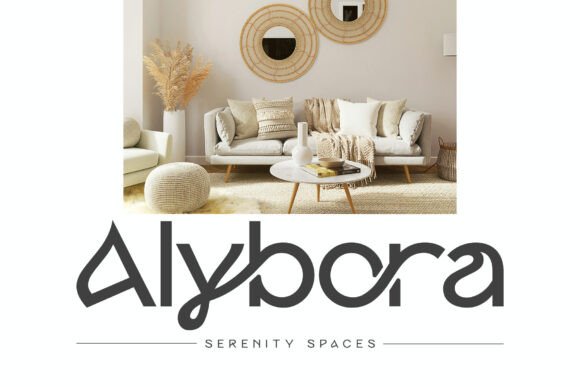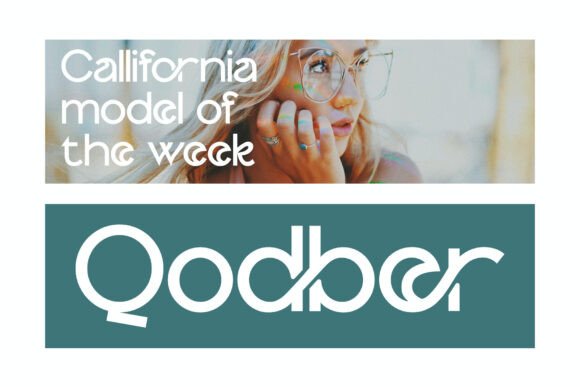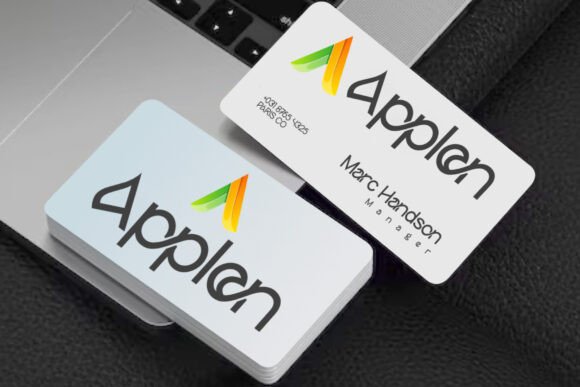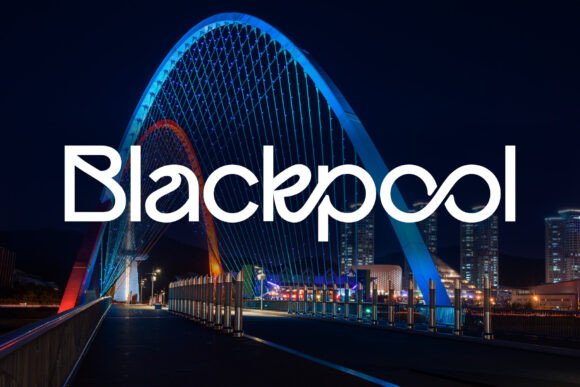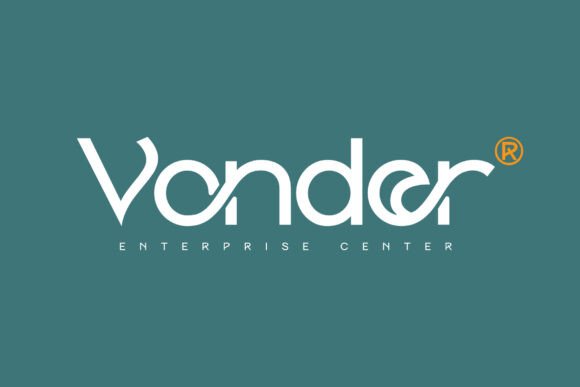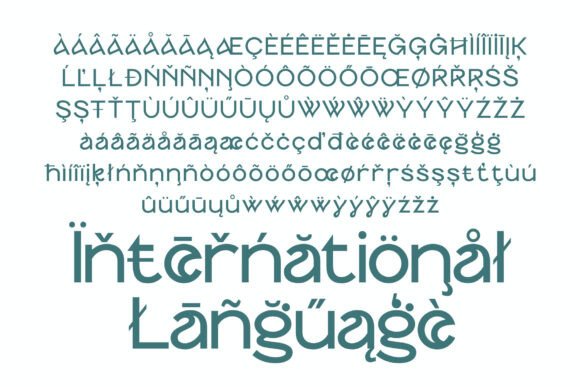
Introducing Gareny Font: Elevate Your Brand’s Visibility with Modern Elegance
In the competitive world of branding, a distinctive visual identity is crucial for standing out. Typography plays a pivotal role in this, and the right font can make all the difference. Meet Gareny Font, a striking and captivating typeface designed to enhance your brand’s visibility and make a lasting impression. Gareny is not just a font; it’s a statement of modernity and sophistication, ideal for designers and crafters looking to elevate their brand’s aesthetic.
The Essence of Gareny Font
Gareny Font is the result of meticulous design and a deep understanding of what makes a brand memorable. It merges clean lines with dynamic visuals, creating a unique balance that captures attention and fosters engagement. This font is crafted to be versatile, making it suitable for a wide range of applications, from logos and headlines to packaging and digital media.
Key Features of Gareny Font
- Clean Lines and Modern Aesthetic: Gareny boasts clean, crisp lines that exude modernity and professionalism. Its sleek design ensures that your brand’s message is conveyed with clarity and elegance.
- Dynamic Visuals: The font’s dynamic nature allows it to adapt to various design contexts, making it perfect for creative projects that require a touch of sophistication.
- Versatility: Whether you’re designing a logo, creating marketing materials, or developing a brand’s digital presence, Gareny is versatile enough to excel in any scenario.
- Legibility: Despite its stylized appearance, Gareny maintains excellent legibility, ensuring that your message is always clear and easily readable.
Why Choose Gareny Font?
In a sea of generic fonts, Gareny offers a refreshing alternative that can set your brand apart. Here are a few compelling reasons to choose Gareny for your typography needs:
- Unique Brand Identity: With Gareny, you can create a unique brand identity that reflects your values and resonates with your target audience.
- Professionalism: The font’s modern and clean design conveys professionalism, helping to build trust and credibility with your audience.
- Adaptability: Gareny’s versatility means it can be used across various platforms and applications, ensuring consistency in your brand’s visual identity.
Using Gareny Font in Your Designs
- Digital Media: Use Gareny to create eye-catching social media graphics, website headers, and digital advertisements that capture attention.
- Print Materials: Enhance your brochures, flyers, and business cards with Gareny’s modern and elegant appearance.
- Branding and Packaging: Create memorable brand logos and packaging designs that stand out on store shelves and online.
Gareny Font is more than just a typeface; it’s a tool for designers and crafters to create impactful, modern, and memorable brand visuals. Its unique blend of clean lines and dynamic visuals makes it an excellent choice for those looking to elevate their brand’s visibility and aesthetic. With Gareny, you can ensure that your brand stands out in a crowded marketplace, making a lasting impression on your audience. Embrace the power of Gareny Font in your design projects and discover a new level of typographic excellence.
- What makes Gareny Font unique? Gareny Font is unique due to its blend of clean lines and dynamic visuals, offering a modern aesthetic that is both elegant and attention-grabbing.
- Is Gareny suitable for digital use? Yes, Gareny is designed to be versatile and performs well in digital media, including websites, social media graphics, and digital advertisements.